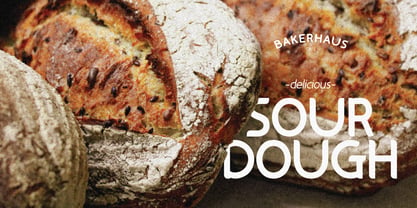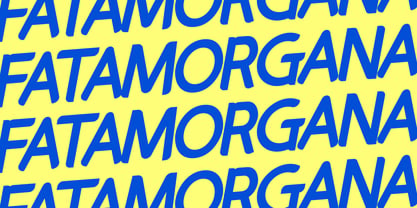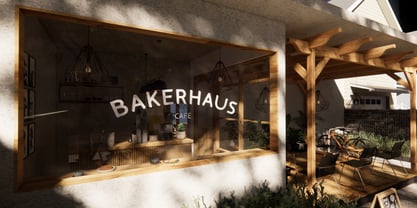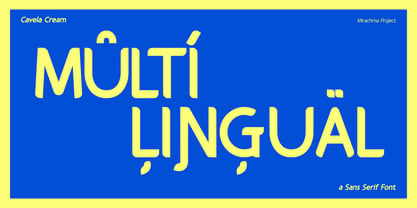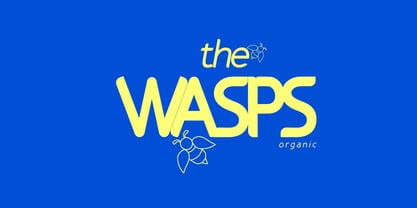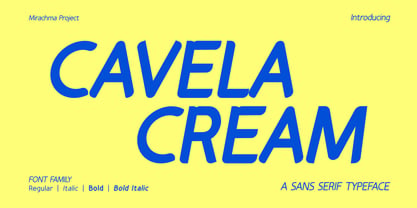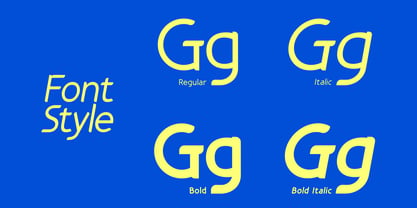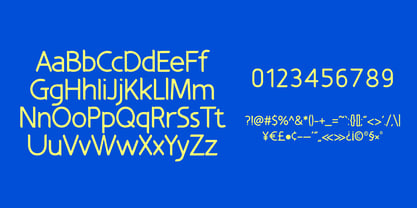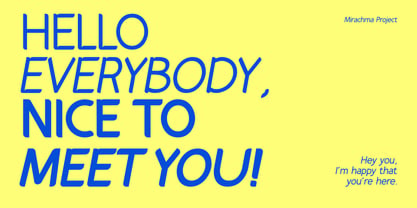
Cavela Cream
The Cavela Cream Font Family was designed by Mira Rachma and published by Mirachma. Cavela Cream contains 4 styles and family package options. More about this family
Let me introduce you to my new font collection, CAVELA CREAM! CAVELA CREAM is a beautiful, aesthetic font with four styles: Regular, Italic, Bold, and Bold Italic. CAVELA CREAM adds a touch of vintage charm to your modern designs. With its smooth, feminine, and elegant curves, this font is perfect for logos, posters, branding, packaging, wedding invitations, presentations, and more. Designed to enhance your creative projects with a feminine, sweet yet fresh aesthetic. File Includes: Font Family ( Regular, Italic, Bold, Bold Italic) Multilingual Font Support Uppercase & Lowercase AlphabetsNumerals & Punctuation Note: Mockups & images featured in the preview image designs are for display purposes only, and not included in the download.